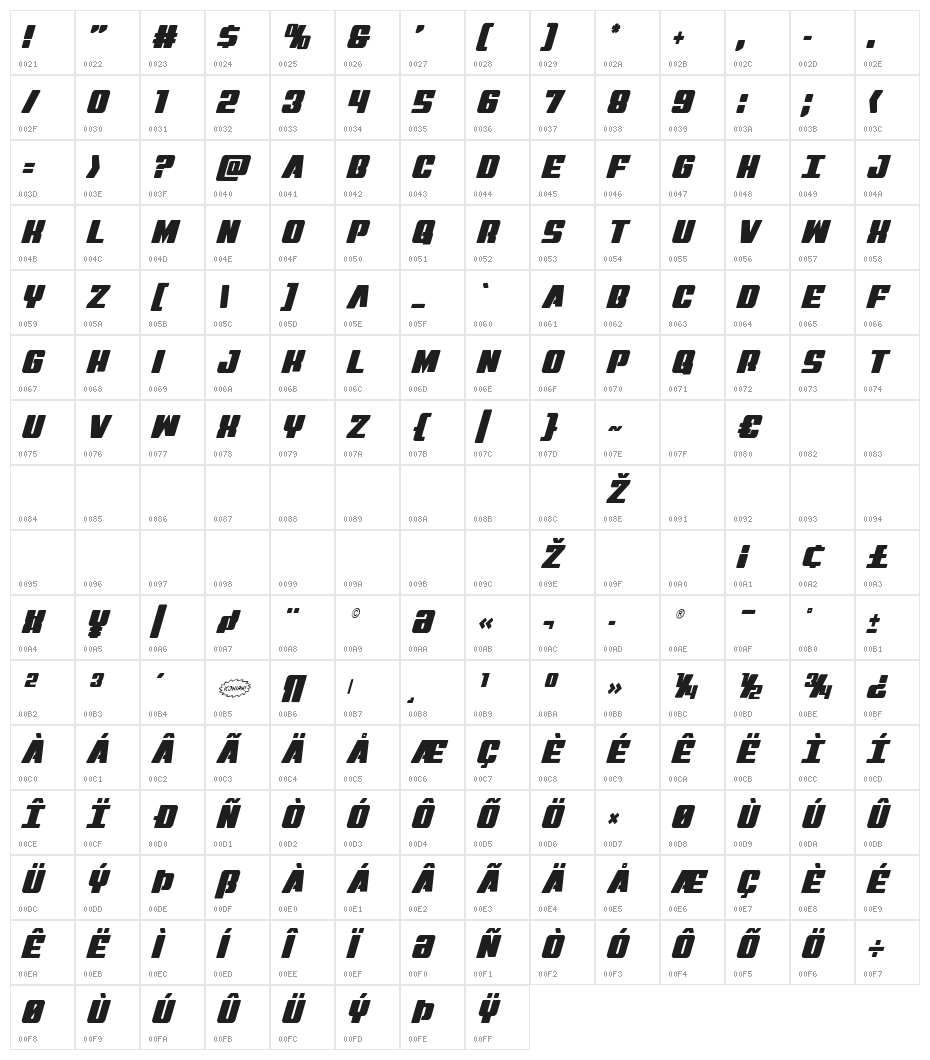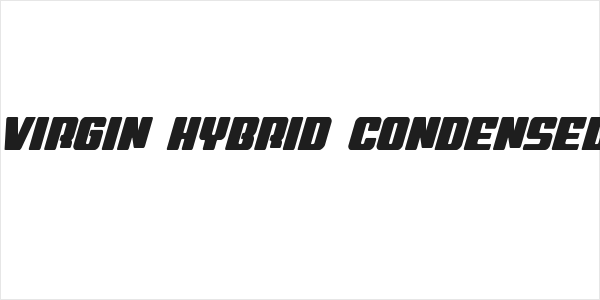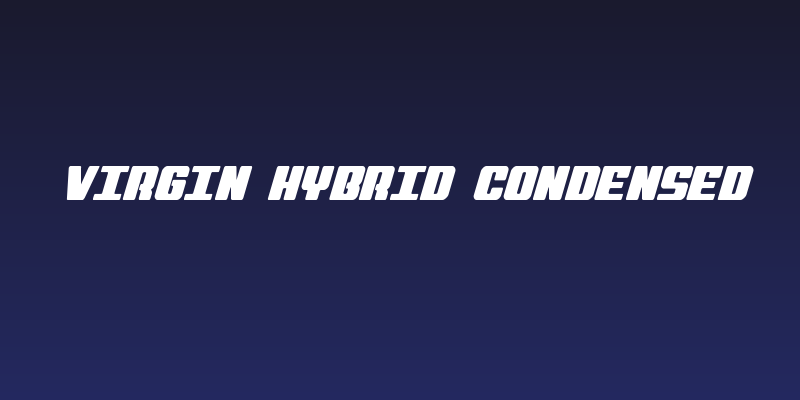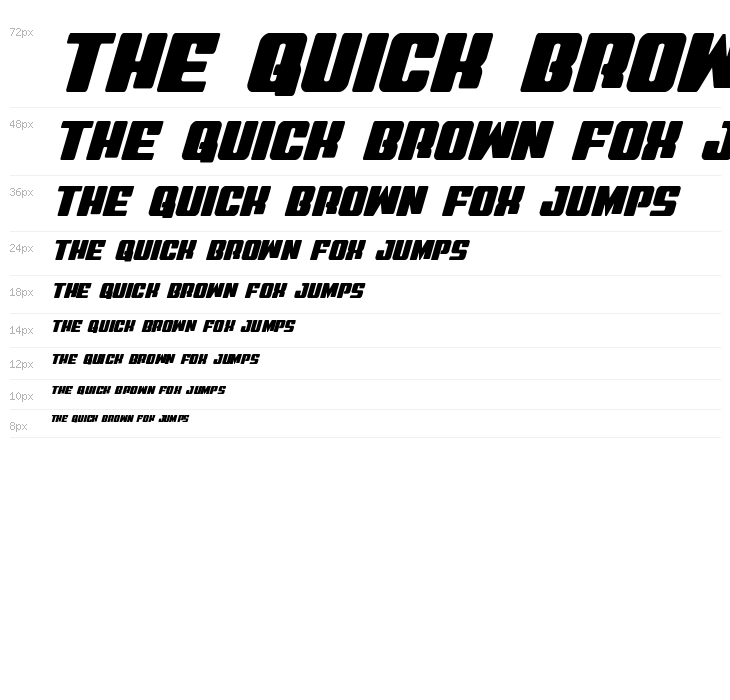
Virgin Hybrid Condensed Font
Virgin Hybrid Condensed Description
This font features a bold and dynamic style with a condensed width, giving it a strong and impactful presence. The characters are designed with a slight slant, adding a sense of motion and energy. The strokes are thick and consistent, providing a uniform appearance across all characters. The font includes both uppercase and lowercase letters, numbers, and a variety of special characters, making it versatile for different design needs. Its boldness and condensed form make it ideal for attention-grabbing headlines and titles.
Proposed ProjectsIdeal for sports branding, posters, headlines, and any design requiring a strong, impactful typeface.